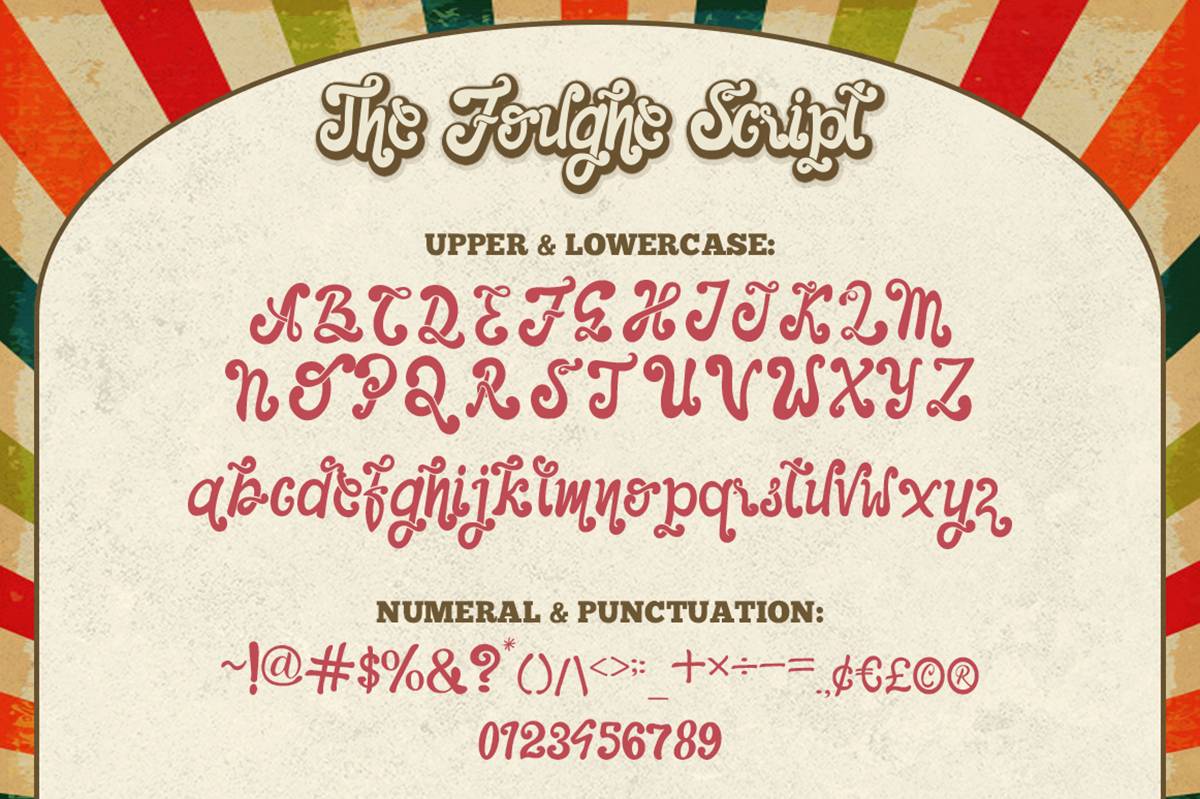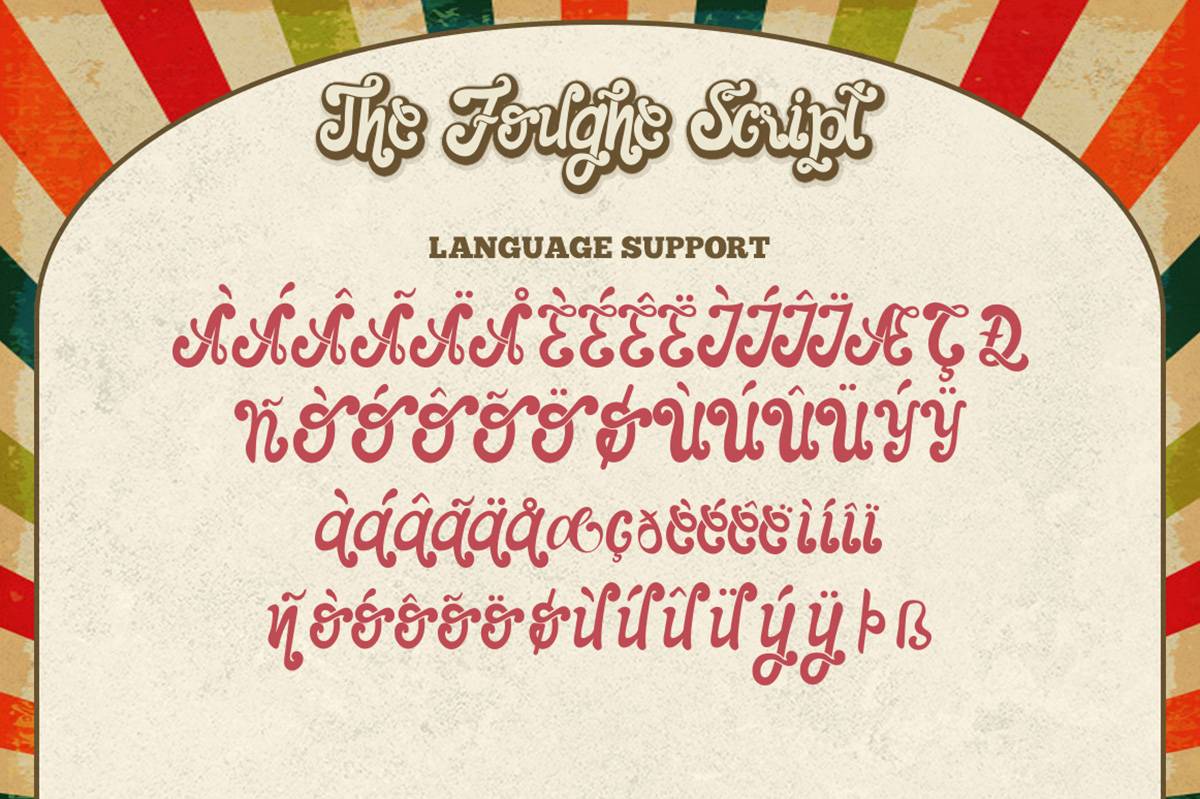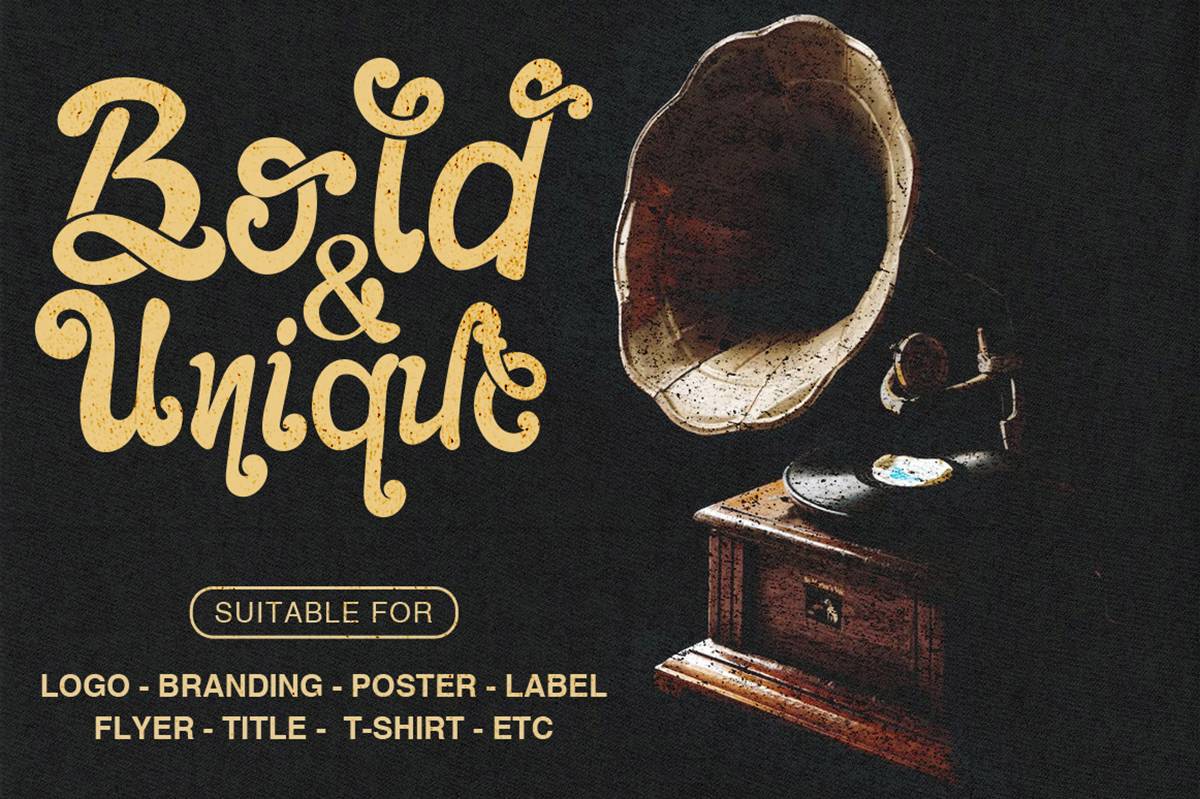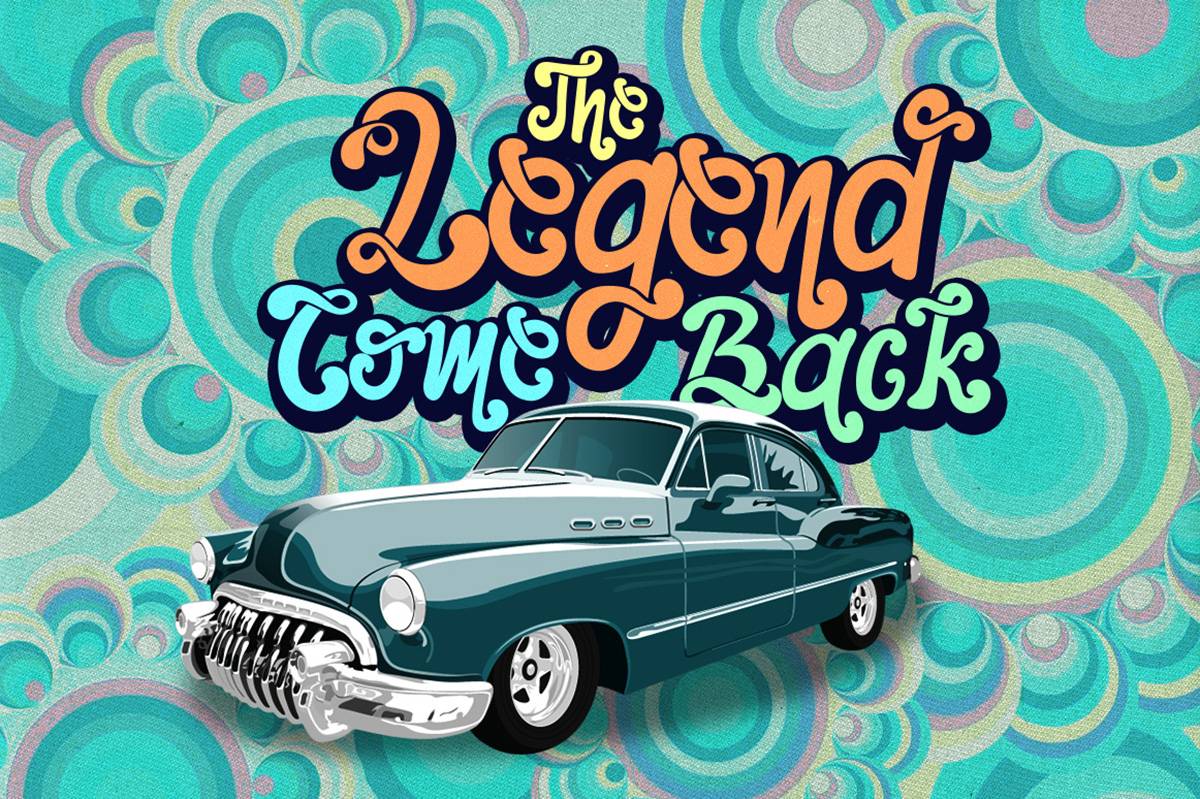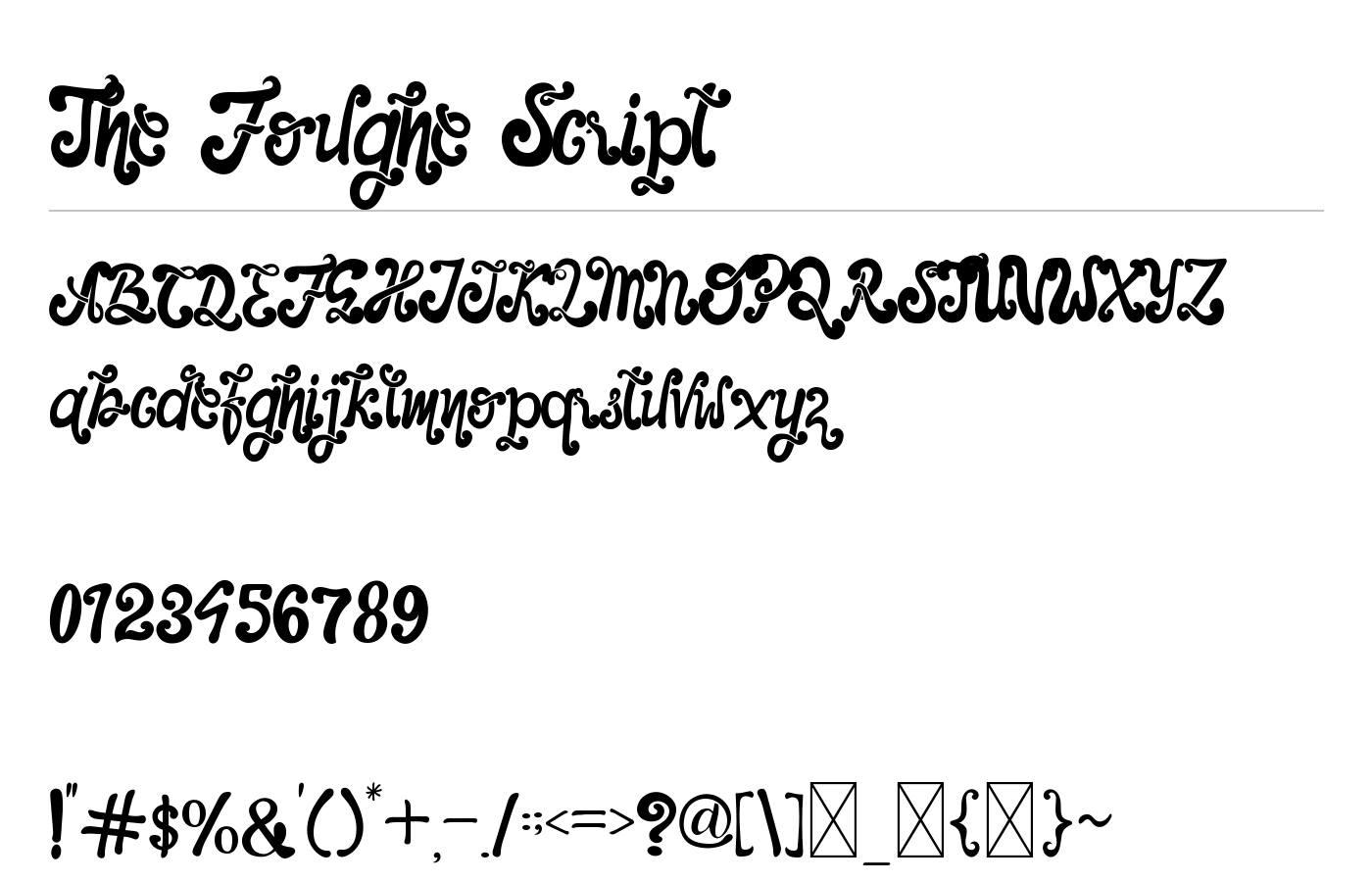
The Foughe Script font is a bold, decorative script with playful, curly strokes that give it a lively, whimsical character. Its thick, rounded forms paired with intricate swirls make it a great choice for eye-catching headlines, logos, or creative branding that aims to convey fun and artistic flair. This font works best in display settings where its unique style can stand out and add a distinct, joyful personality.
The Foughe Script Font
About The Foughe Script Font
| Font family | The Foughe Script Font |
| Designer | Arif Dwi |